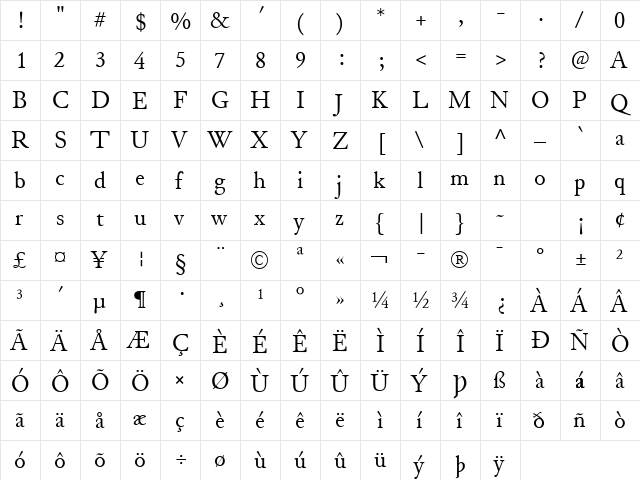
DOE Regular
Design Context for DOE Typeface
DOE offers clean, dependable letterforms without strong stylistic allegiance, making it a practical choice for designers who need flexibility.
Pro Tip: Pair DOE with a font of contrasting weight or personality to build a more expressive typographic hierarchy.